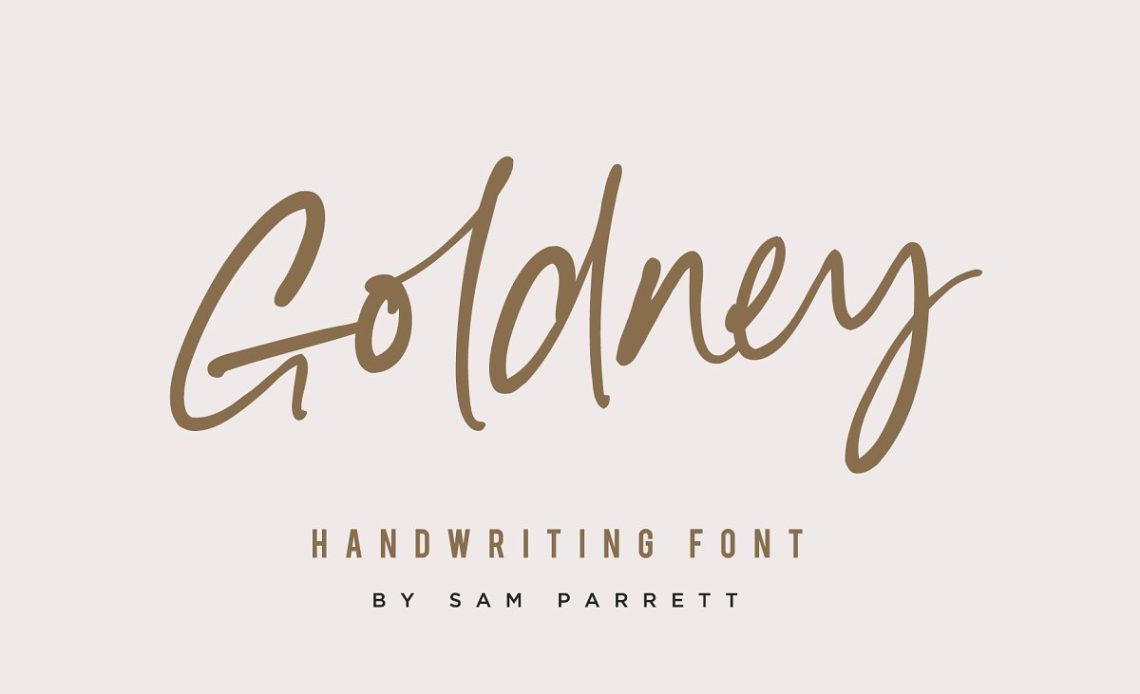
Introducing Goldney Font, the ultimate script font designed to elevate your projects to the next level! Created by the talented Sam Parrett, this font is not your average script font - it's a modern handwriting font that will captivate and inspire.
Goldney is unlike any other script font out there. Its incredibly realistic letterforms and free-flowing sentences were meticulously crafted by writing out hundreds of individual words. The result is a font that feels natural and authentic, making your text come alive.
But that's not all - Goldney also comes with a whopping 90 Ligatures, unique letter combinations that add even more personality and authenticity to your designs. Whether you're creating a handwritten logo, branding, advertisement text, quotes, headers, or product packaging, Goldney is the perfect choice.
To add an extra touch of flair, Goldney also offers slanted versions for both regular and alternate fonts. These slanted versions give your text a more italicized, fast-hand flow, perfect for adding a dynamic touch to your designs.
Goldney also supports a wide range of languages, including English, French, Italian, Spanish, Portuguese, German, and many more. No matter where you are in the world, Goldney has got you covered.